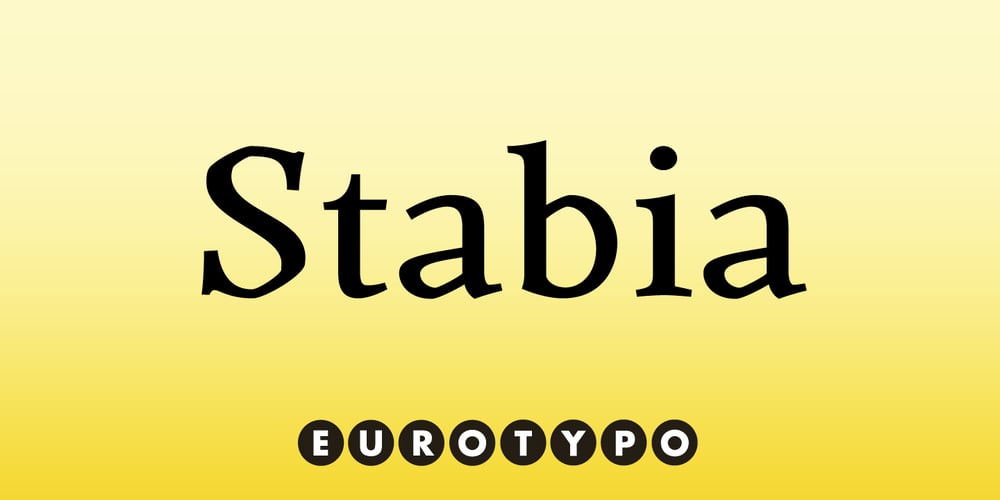
Stabia Font Family was designed by Olcar Alcaide and published by Eurotypo. Stabia contains 10 styles and family package options. Stabia is a multi-purpose typeface with large wedge-angular serifs. It is delicate and highly readable at very small sizes but reveals all its strength and personality when used at big sizes. The contrast of the sharped serifs provides a fresh and very contemporary look. The family has 5 weights, ranging from Light to Black (including italics) and is ideally suited for advertising and packaging, book text, editorial and publishing, logo and branding, small text as well as web and epub. Stabia provides advanced typographical support with features such as ligatures, small capitals, alternate characters, case-sensitive forms, fractions, and super- and subscript characters. It comes with a complete range of figure set options – oldstyle and lining figures, each in tabular and proportional widths. As well as Latin-based, the typeface family also supports Central European languages. Stabiae was an ancient Roman town, located close to the modern town of Castellammare di Stabia approximately 4.5 km southwest of Pompeii. According to the account written by his nephew, Pliny the Elder was at the other side of the bay in Misenum when the Mount Vesuvius eruption started. He travelled by galley ship across the bay, partly to observe the eruption more closely, and partly to rescue people from the coast near the volcano. Pliny died at Stabiae the following day, probably during the arrival of the sixth and largest pyroclastic surge of the eruption caused by the collapse of the eruption plume.